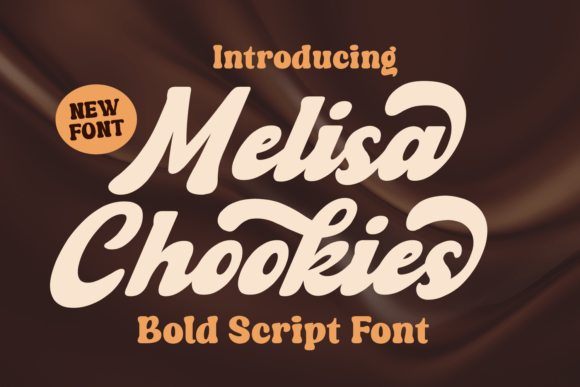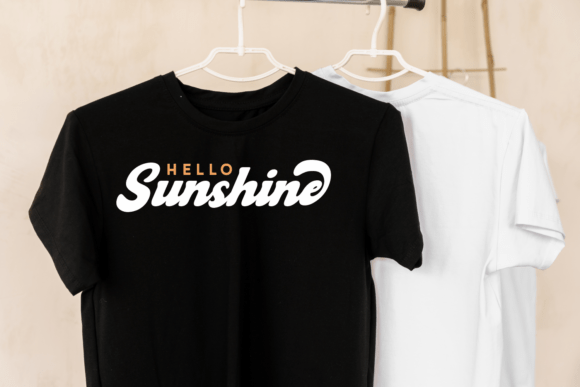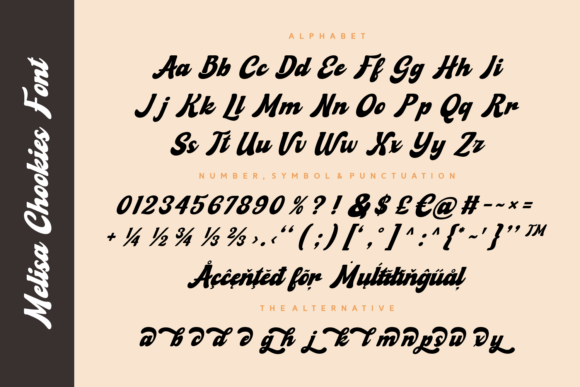
Melisa Chookies Font
About the Melisa Chookies Font
Crafted with precision, the Melisa Chookies Font is ready to bring your ideas to life. Melisa Chookies is a bold script font packed with personality and retro charm. Featuring thick strokes, playful curves, and dynamic swashes, this font is perfect for making headlines pop, designing quirky packaging, or crafting vintage-style branding. Its creamy flow and nostalgic vibe make Melisa Chookies a deliciously fun choice for any project that needs a bold, memorable touch.
Melisa Chookies excels in headlines, short taglines, and packaging design where its bold personality shines. It’s also well-suited for branding projects aiming for a retro or vintage aesthetic. However, its highly decorative nature makes it unsuitable for body text or UI elements requiring high readability. Avoid using it for long paragraphs or situations needing clear, concise communication.
The font’s playful, retro charm pairs well with clean sans-serif fonts like Open Sans for body copy, creating a balanced contrast. For a more sophisticated feel, consider pairing it with a classic serif like Garamond, allowing Melisa Chookies to provide a bold, memorable accent. Geometric sans-serifs such as Futura can also provide a modern counterpoint to its vintage curves.
Melisa Chookies embodies a bold, playful, and retro personality. It is ideal for brands and projects seeking a fun, memorable, and slightly nostalgic feel. Think vintage sweets, artisan goods, or entertainment brands with a retro twist.
Melisa Chookies Font Usage Examples
Melisa Chookies Font Example